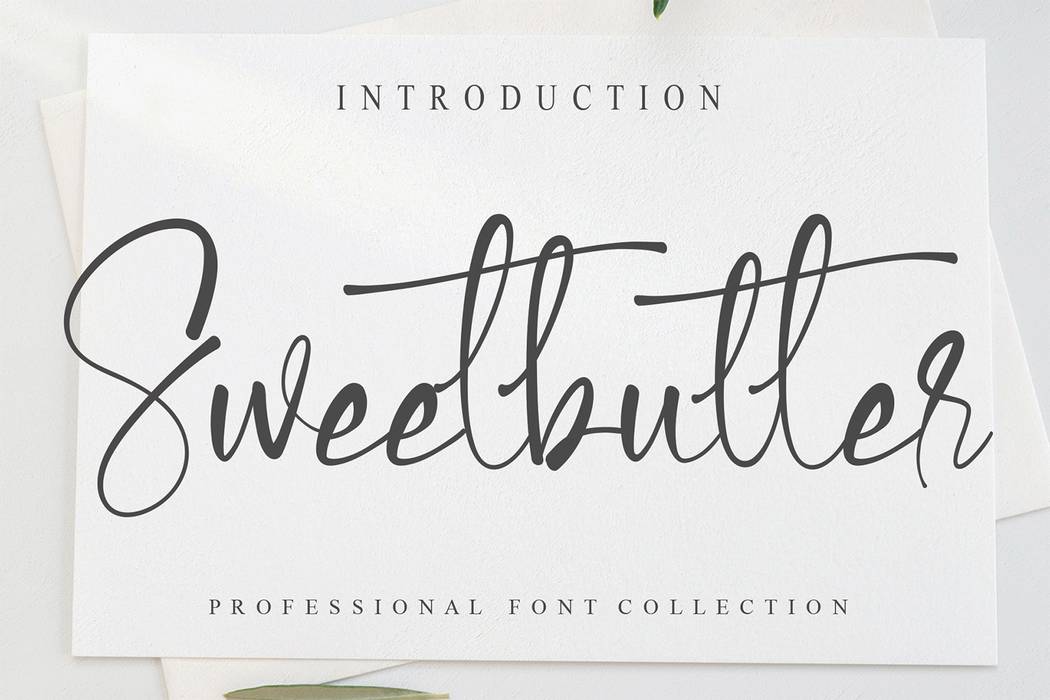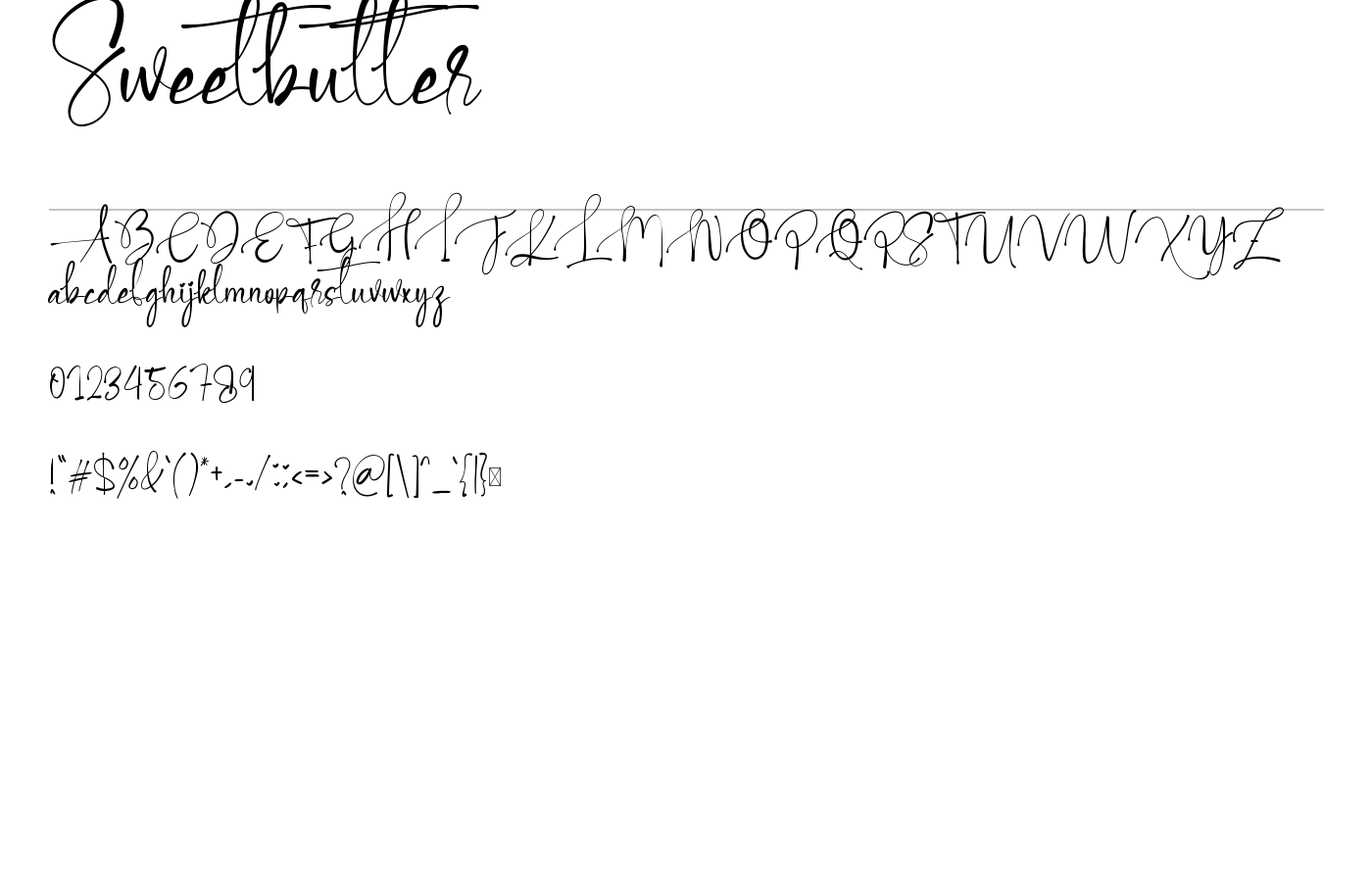
Sweetbutter is a delicate, handwritten script font with a light and airy feel, characterized by elongated, flowing strokes and playful loops that give it a graceful yet modern personality. Its tall x-height and fine, calligraphic lines make it perfect for elegant branding, invitations, and artistic projects that seek a personal, stylish touch. This font works beautifully in logos and headlines where a whimsical, sophisticated vibe is desired.
Sweetbutter Font
About Sweetbutter Font